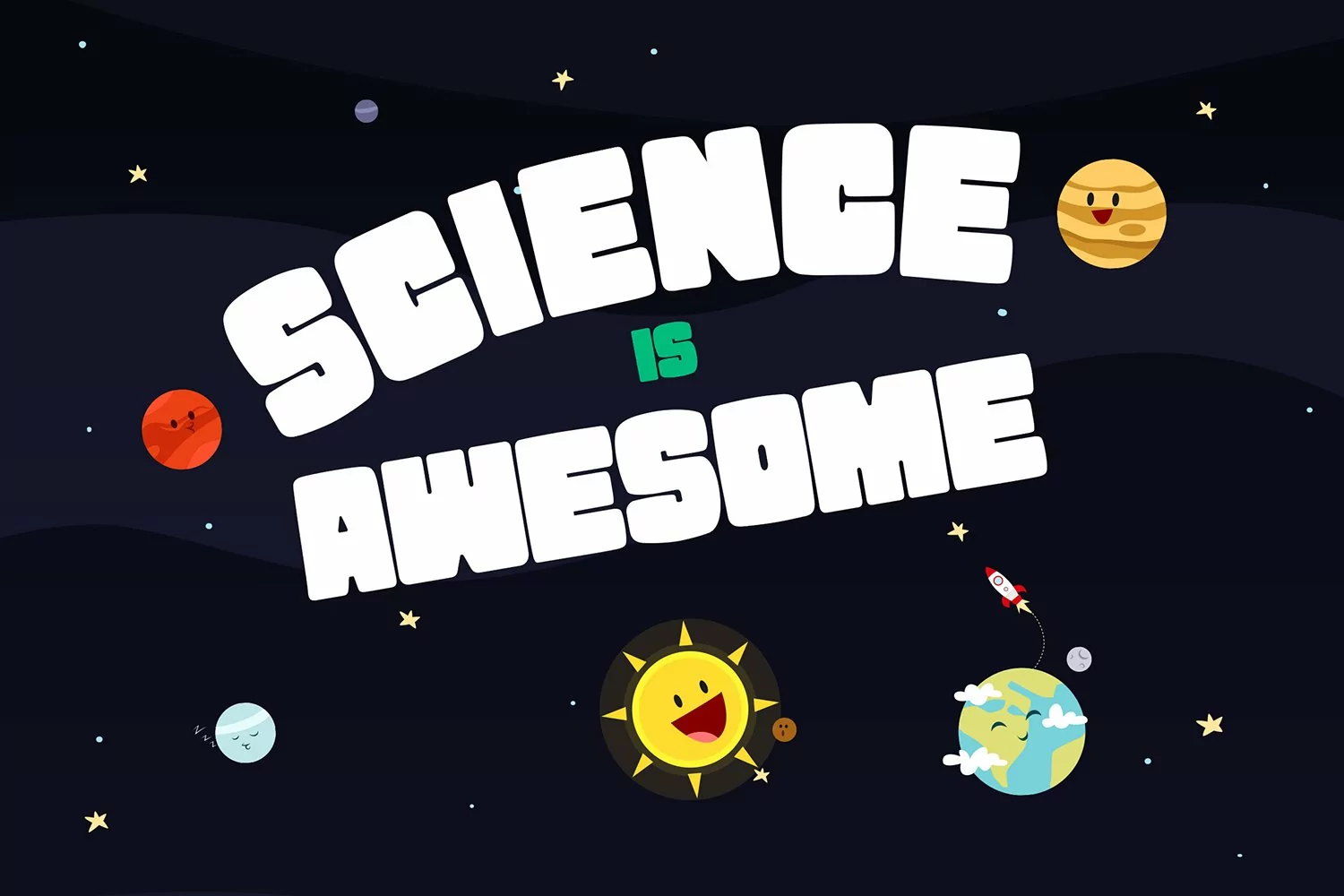
Glubby Font - Fun Display Font
Meet Glubby a fun display font! It's perfect for fun, kids and children themes. With its fat bold look, you can use in big titles and headlines to create a very cute look.